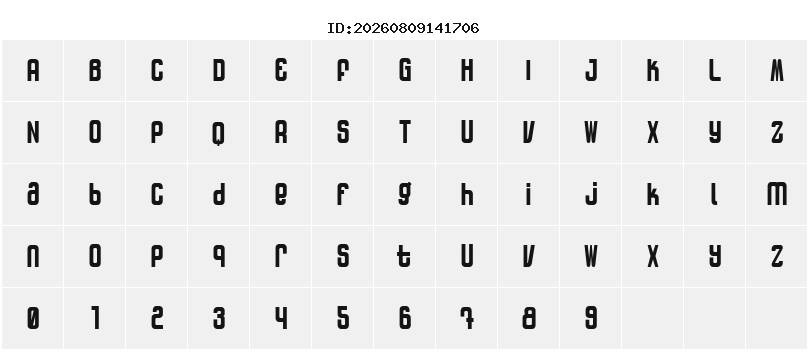
About Patinio Rotulo.ttf
Patinio Rotulo.ttf is a modern, elegant sans-serif font designed for ultimate readability and visual harmony. Perfect for branding, headlines, web design, and print materials.